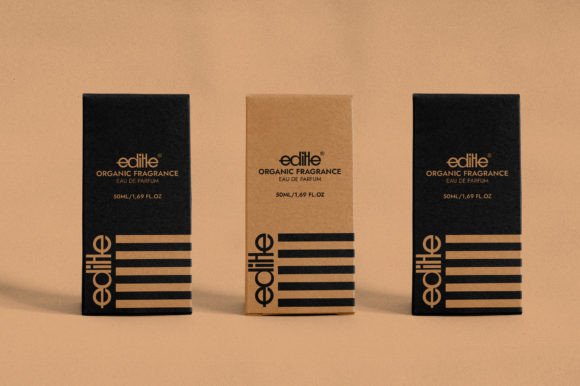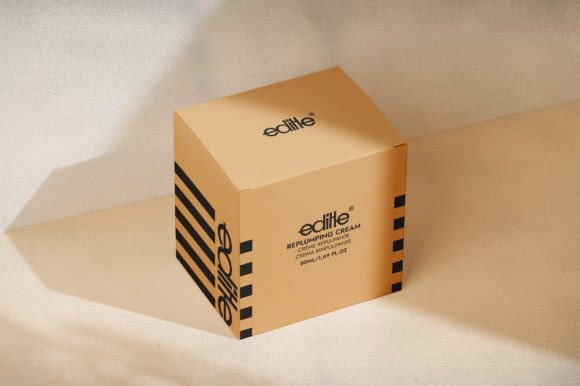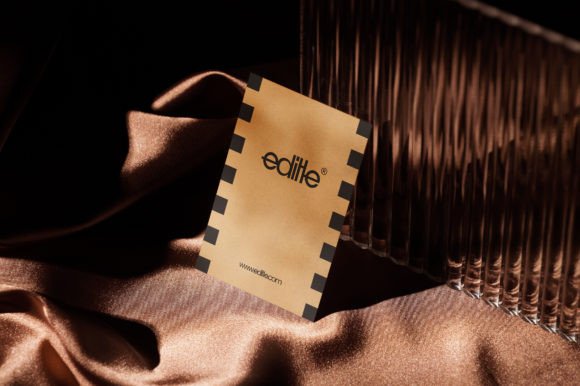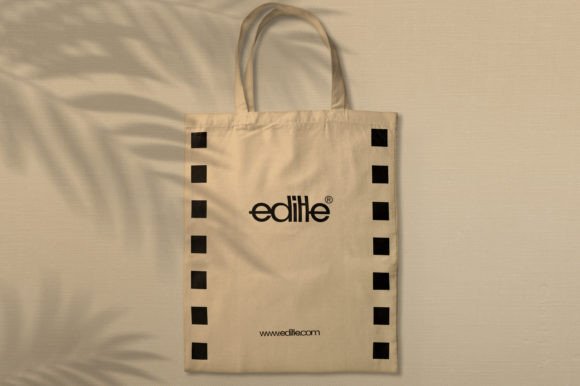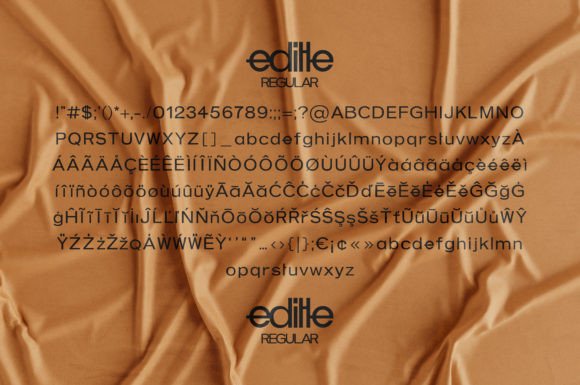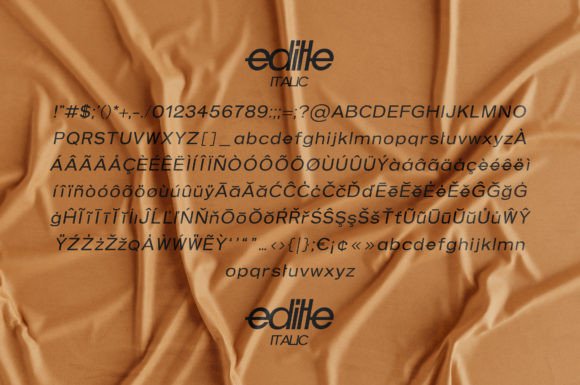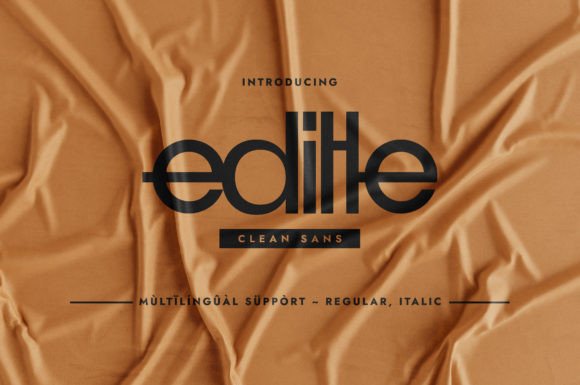
Introducing Editle Font: The Ultimate Minimalist Choice for Designers
In the world of typography, finding the perfect font can be a daunting task, especially for designers and crafters who strive for simplicity and elegance. Look no further than Editle Font, a clean, minimalist, and compressed sans serif typeface that’s taking the design community by storm. With its versatility and attention-grabbing appeal, Editle Font is poised to become a staple in your font library.
The Editle Font Advantage
So, what makes Editle Font stand out from the rest? For starters, its minimalist design ensures that your message takes center stage, uncluttered by ornate details or distracting flourishes. This makes it an ideal choice for logo design, where simplicity and legibility are paramount. Additionally, Editle Font’s compressed structure allows for efficient use of space, making it perfect for packaging design, large-scale banners, and other applications where visual impact is crucial.
Key Features of Editle Font
- Clean and Minimalist Design: Editle Font boasts a sleek, uncluttered aesthetic that’s perfect for modern designs.
- Compressed Sans Serif Typeface: Its compact structure ensures efficient use of space without sacrificing legibility.
- Versatile: Suitable for a wide range of applications, from logo design and packaging to large-scale banners and more.
- Attention-Grabbing: Editle Font’s unique blend of simplicity and style makes it impossible to ignore.
Why Designers and Crafters Love Editle Font
Editle Font’s growing popularity among designers and crafters can be attributed to its adaptability and aesthetic appeal. Whether you’re working on a branding project, creating eye-catching packaging, or designing a statement piece, Editle Font provides the perfect balance of form and function. Its clean lines and minimalist charm make it easy to pair with other fonts, ensuring a cohesive look that elevates your design.
Editle Font is more than just a typeface – it’s a design solution that offers the perfect blend of style, versatility, and attention-grabbing appeal. Whether you’re a seasoned designer or a crafter looking to elevate your work, Editle Font is an excellent addition to your toolkit. Its clean, minimalist design and compressed sans serif structure make it an ideal choice for a wide range of applications. Add Editle Font to your library today and discover how it can quickly become one of your favorite go-to fonts.